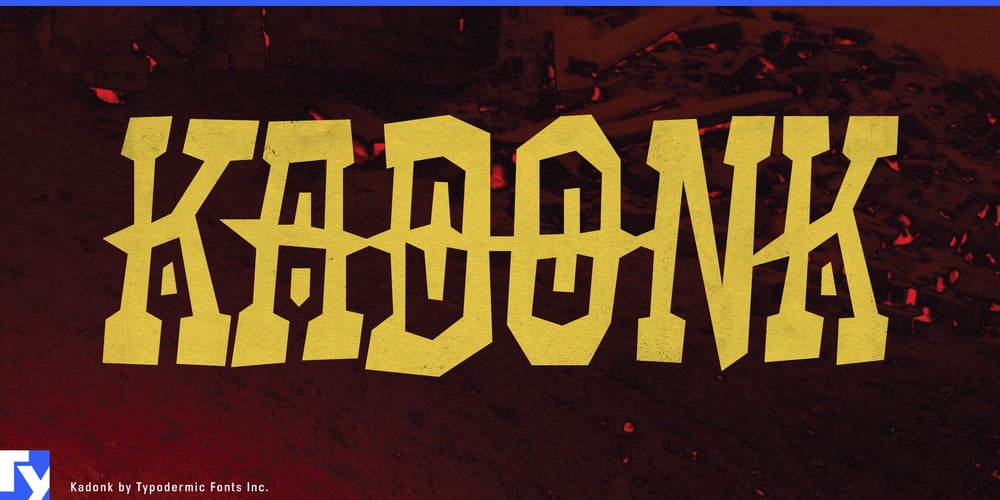
Kadonk Font Family was designed by Ray Larabie and published by Typodermic. Kadonk contains 1 styles and family package options. Kadonk erupts onto the typographic battlefield with primal ferocity, a font that eschews subtlety in favor of raw, unbridled aggression. This is not a typeface for the faint of heart—it’s a visual war cry, designed to pummel viewer sensibilities and leave an indelible mark on any design landscape it inhabits.At its core, Kadonk embodies a kind of delightful mindlessness. It revels in its brutal aesthetic, with each character seemingly hewn from the chaos of combat. Sharp, jutting edges and aggressively curved forms collide in a cacophony of visual violence, creating letterforms that don’t just communicate—they annihilate the senses. What sets Kadonk apart is its refusal to be tamed by typographic conventions. The typeface features unique letter pair ligatures that shatter any semblance of monotony, infusing each word with a feral unpredictability. These savage connections between characters create a rhythm as erratic and powerful as a primitive war dance, ensuring that no two instances of text feel quite the same.Despite its barbaric appearance, Kadonk demonstrates surprising versatility in its linguistic reach. Supporting a wide array of Latin-based European writing systems, it stands ready to unleash its typographic fury across borders and cultures. From the fjords of Norway to the steppes of Central Asia, Kadonk roars its message with undiminished ferocity, ensuring that your words retain their impact regardless of the language. Kadonk finds its natural habitat in designs that demand immediate, visceral reactions. It’s the perfect choice for heavy metal band logos, extreme sports branding, or edgy streetwear graphics. In the digital realm, it can transform user interfaces into battlegrounds of engagement, perfect for gritty game designs or apocalyptic web experiences.Embrace Kadonk, and watch as it transforms your designs into visual declarations of war. It’s a weapon in your creative arsenal, capable of shattering design norms and leaving a trail of stunned viewers in its wake. From album covers that scream for attention to posters that punch through the noise of visual overload, Kadonk stands ready to articulate your most aggressive design impulses. In a world of polite, well-behaved typefaces, Kadonk is the barbarian at the gates, ready to lay waste to tepid designs and forgettable messaging.